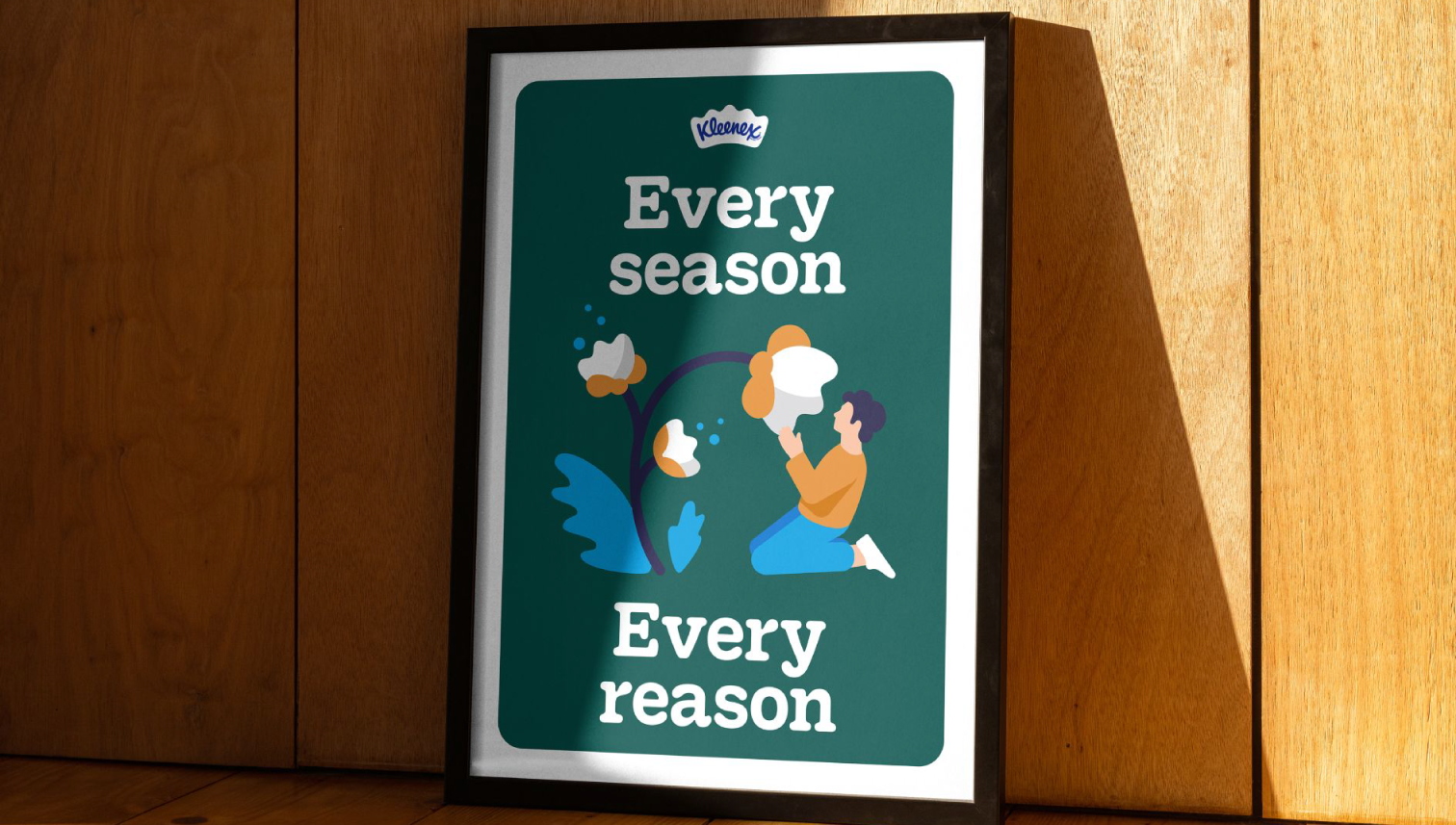
We drew soft and dependable letters
that made Kleenex better
We were brought in by the good folks of Turner Duckworth to develop a timeless and future-facing custom font to coincide with Kleenex's 100 year anniversary. The font is as soft and dependable as their tissues are, and takes inspiration from the iconic Kleenex script originally designed by Saul Bass in 1961.